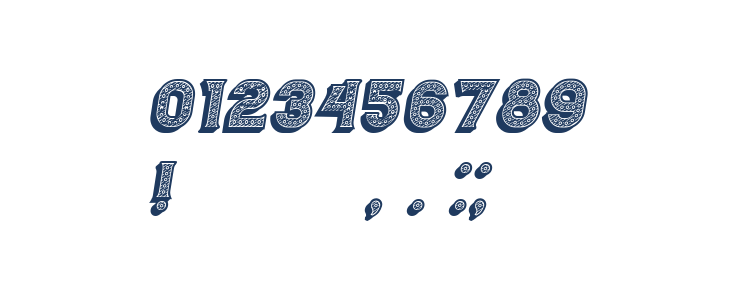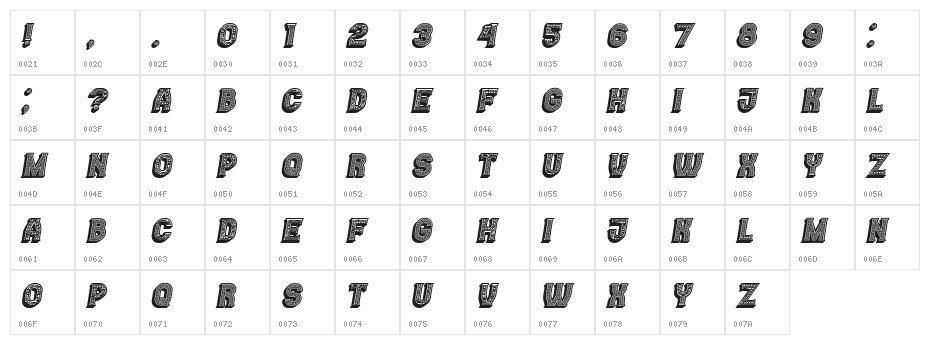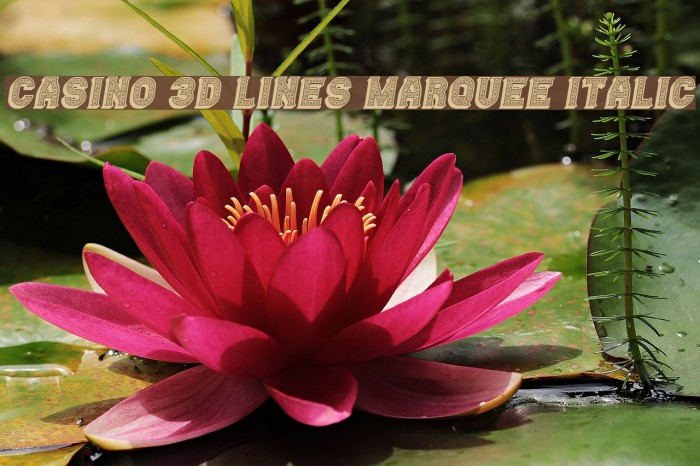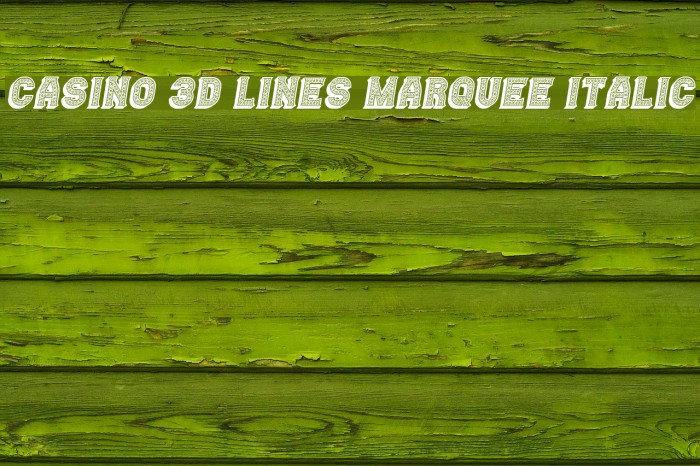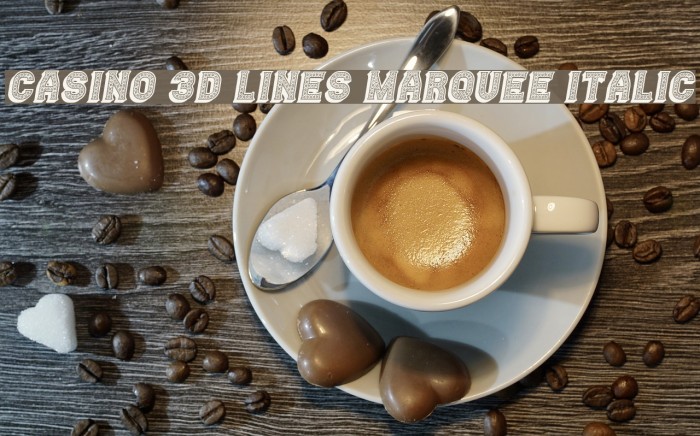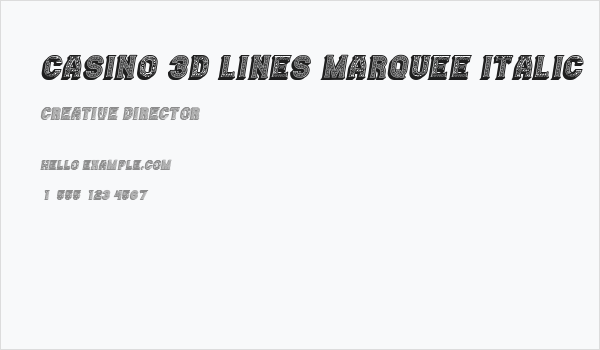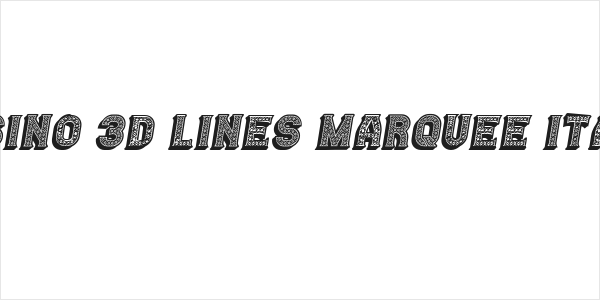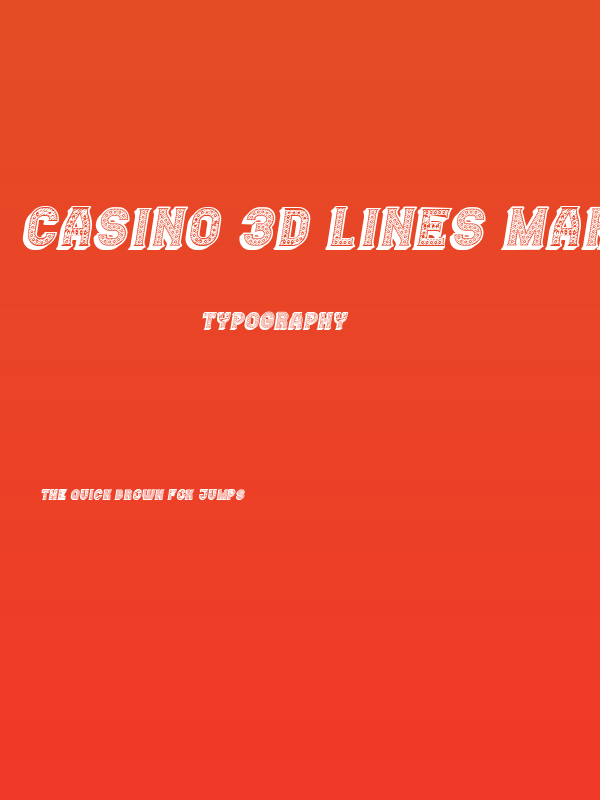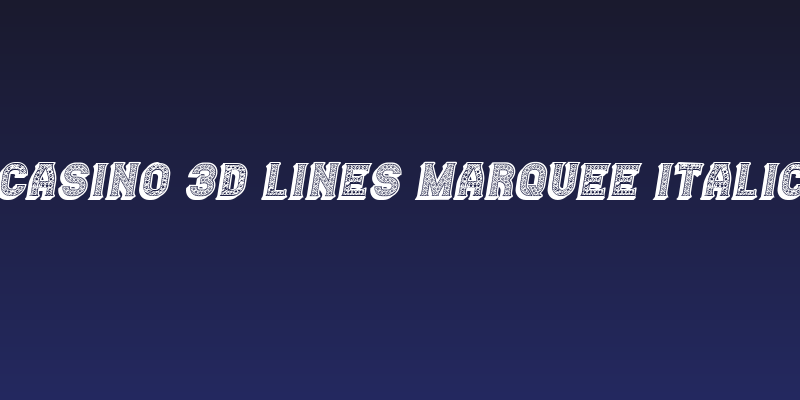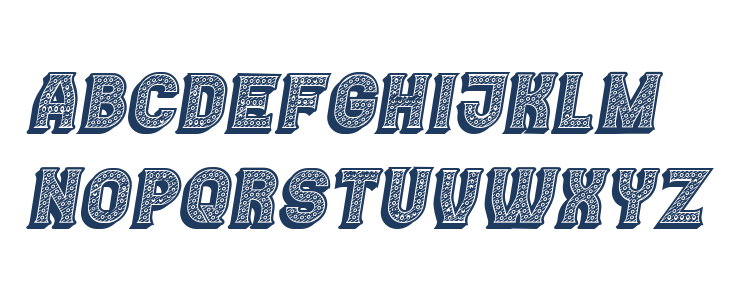
Casino 3D Lines Marquee Italic Font
Casino 3D Lines Marquee Italic Description
This font features a bold, three-dimensional style with intricate line patterns within each character, reminiscent of marquee lights. The letters are uppercase and have a distinct italic slant, adding a dynamic and playful touch. The design is highly decorative, with each character filled with a series of dots and lines that create a textured appearance. The numbers and special characters follow the same ornate style, making the font cohesive and visually striking. Its boldness and unique design make it stand out, suitable for eye-catching displays.
| Use Case | Headlines, Logos, Signage |
| Proposed Projects | Ideal for casino-themed designs, vintage posters, signage, and any project requiring a bold, decorative touch. |